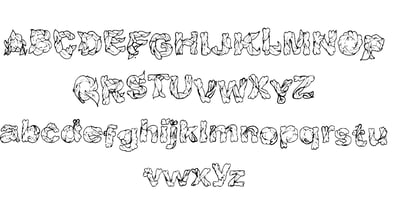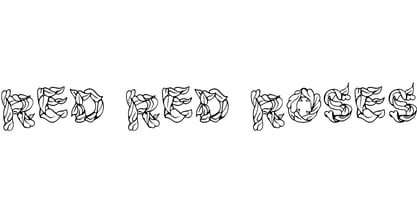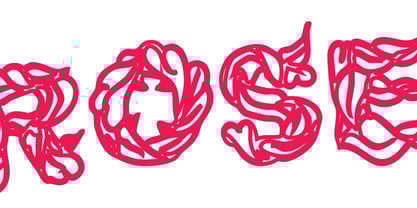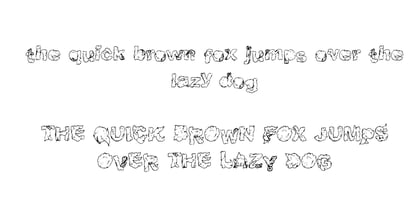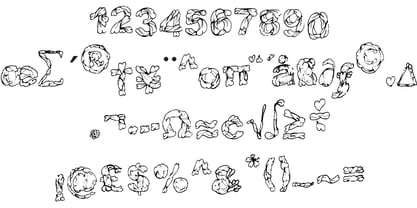
Newsprint Leafs
by Jointype
The Newsprint Leafs Font Family was designed by Jeremy Gill-Praba and published by Jointype. Newsprint Leafs contains 1 styles. More about this family
Designers: Jeremy Gill-Praba
Foundry: Jointype
Newsprint Leafs